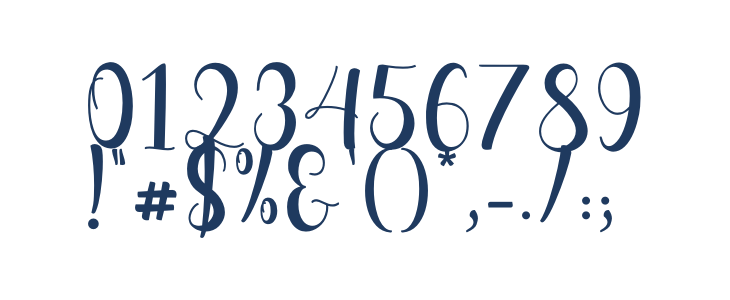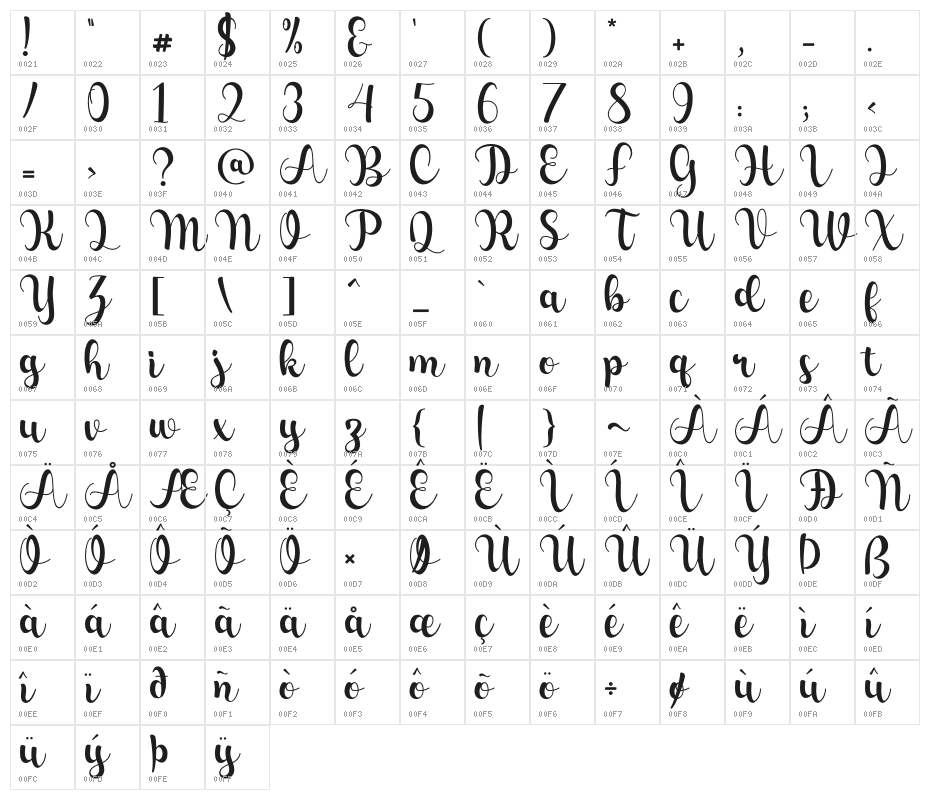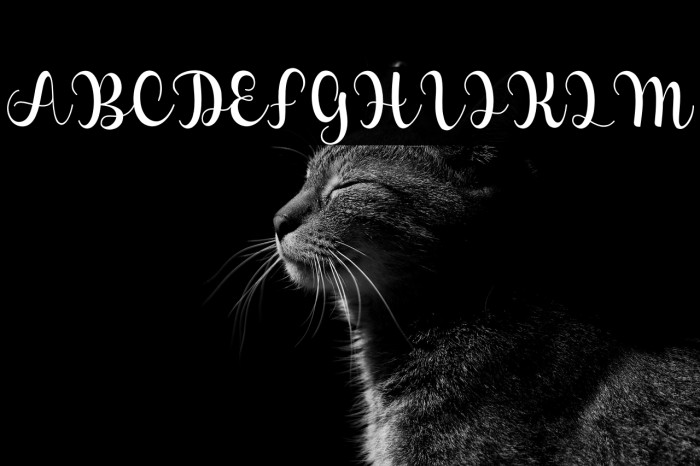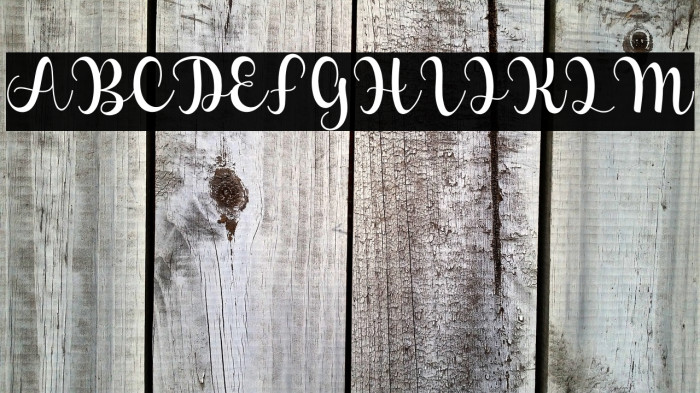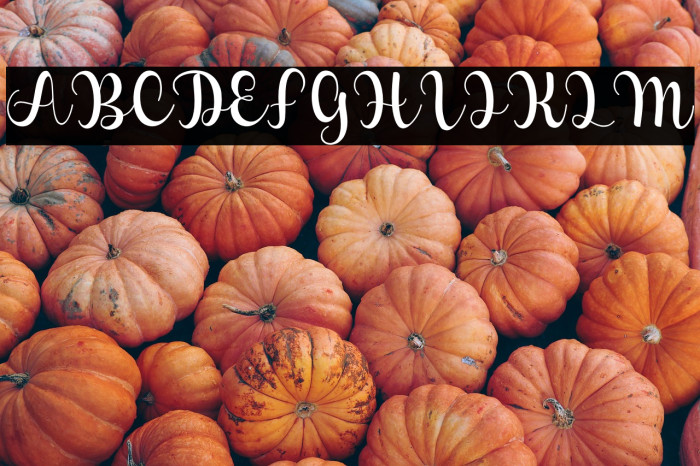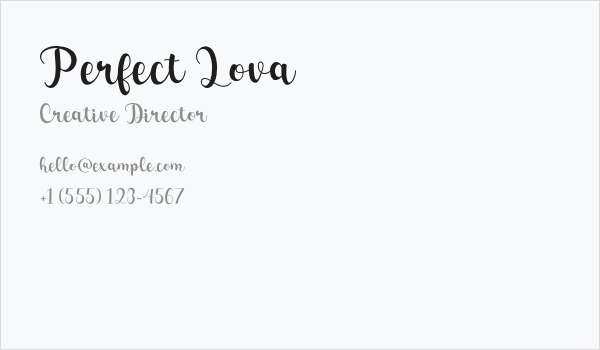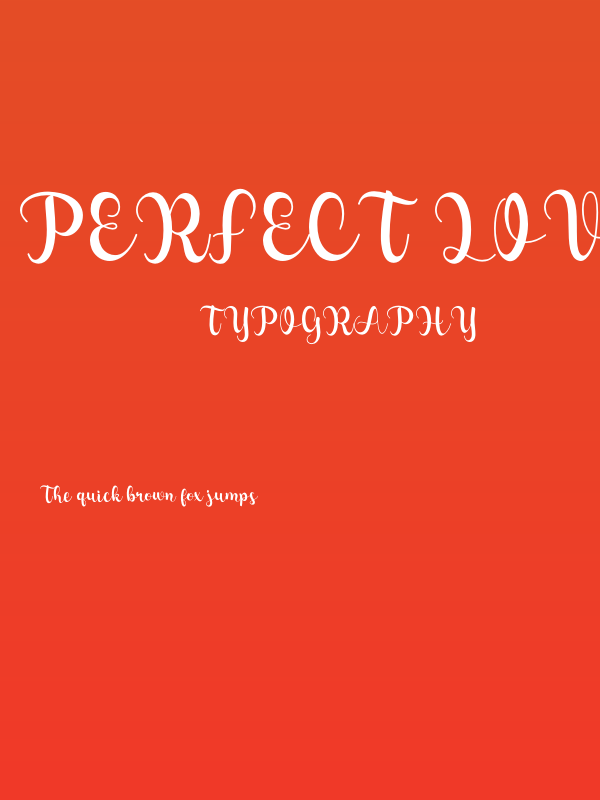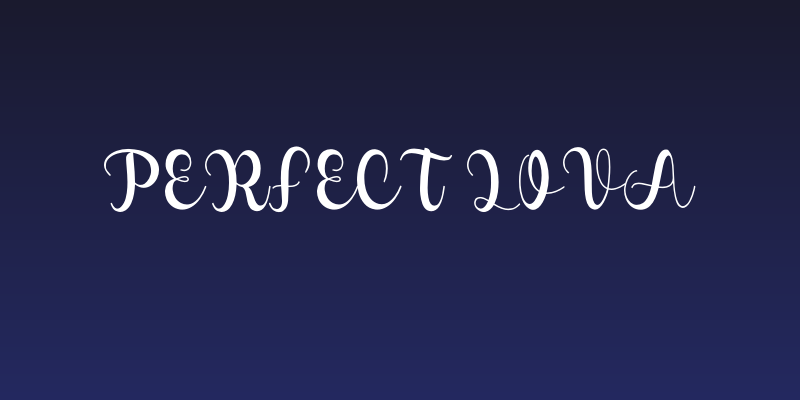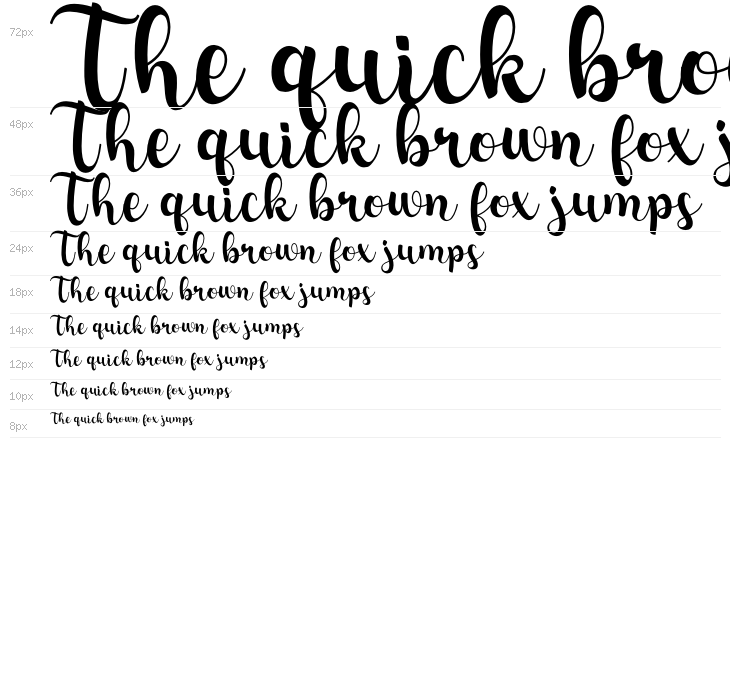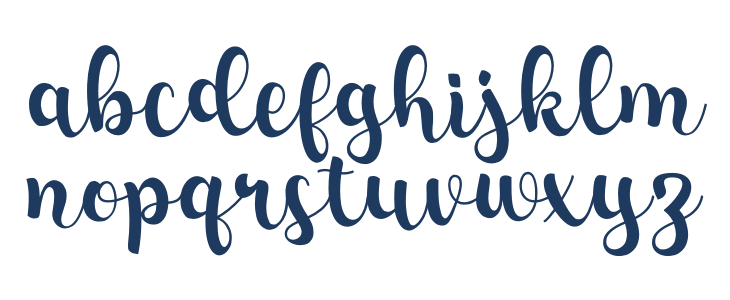
Perfect Lova Font
Perfect Lova Description
This font features a charming and elegant script style with flowing, cursive letters that exude a sense of romance and sophistication. The uppercase letters are gracefully connected, while the lowercase letters maintain a consistent, smooth flow. The numerals are stylishly curved, complementing the overall aesthetic. Special characters are designed with flair, adding to the font's decorative appeal. The strokes are moderately thick, providing a balanced contrast that enhances readability while maintaining an artistic touch. This font is perfect for projects that require a touch of elegance and personality.
| Proposed Projects | Ideal for wedding invitations, greeting cards, branding, and elegant packaging. |